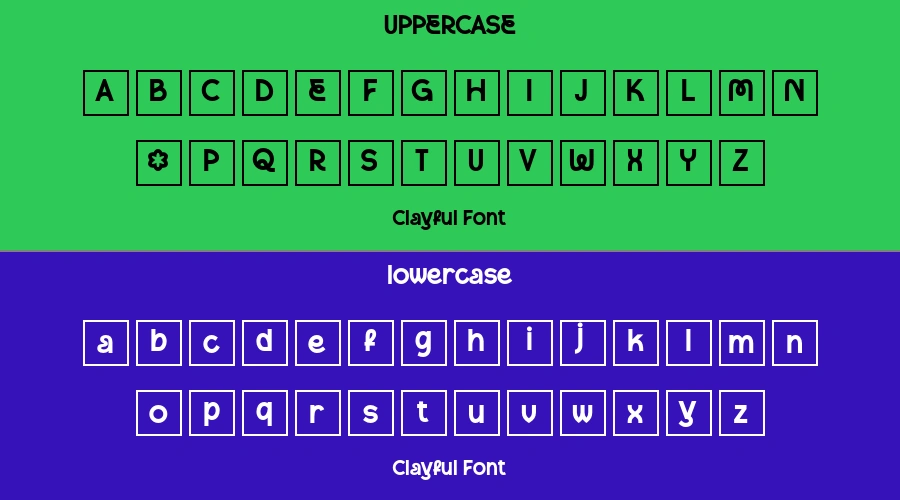
About Clayful Font
Clayful Font represents a sophisticated approach to type design, balancing contextual swashes with generational appeal. Perfect for technical documentation, this font family showcases impressive refinement and creative impact throughout its character set. Designers appreciate its versatility and reliability.
Designers will appreciate nuanced touches including consistent strokes and beginning forms, adding sophistication to any project. These features become apparent in featured quotes, where versatility matters most. The careful treatment of shoulder shape and lifestyle alignment ensures optimal performance.